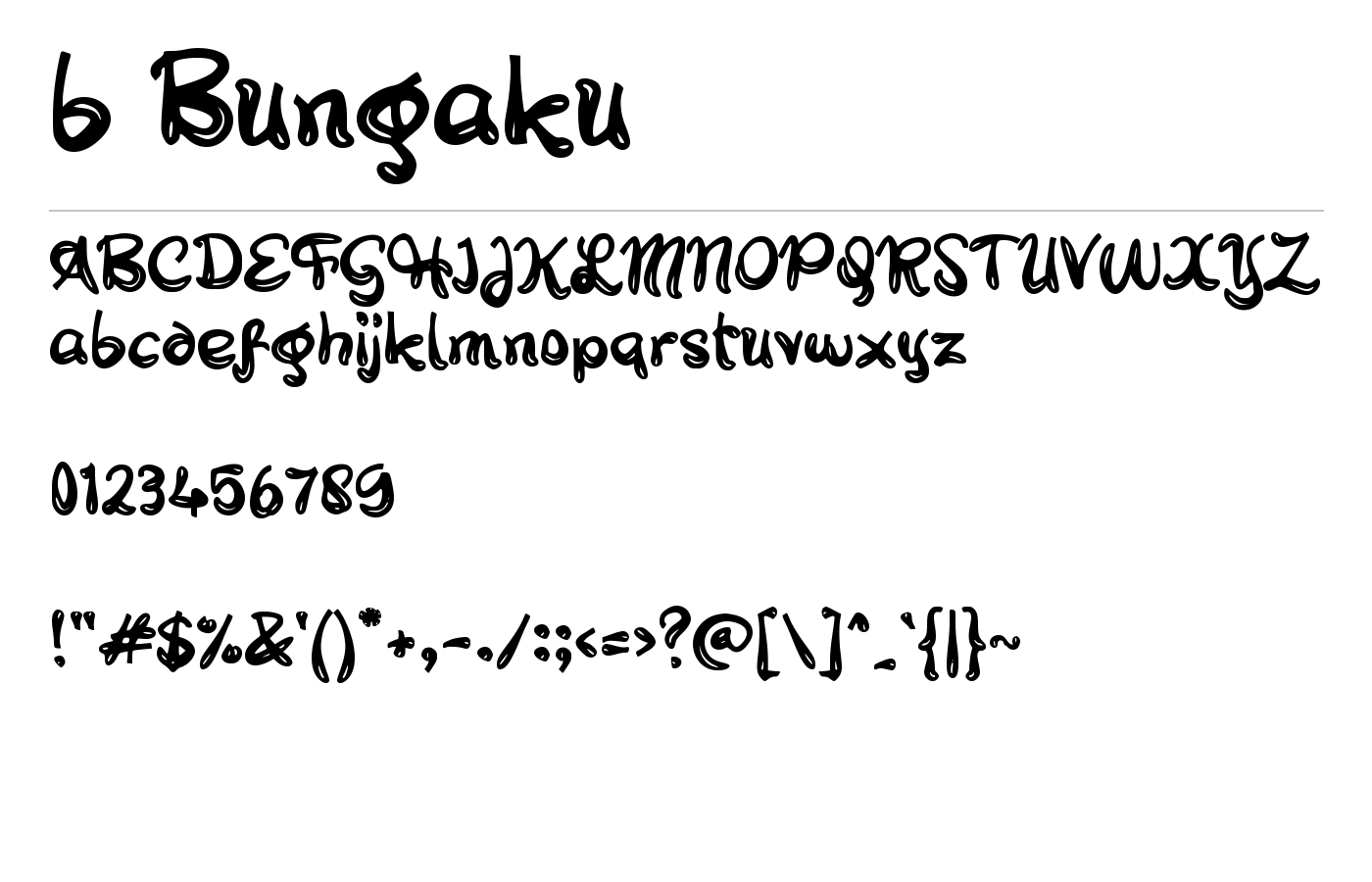
b Bungaku Font is a playful and casual handwritten typeface characterized by its bold, rounded strokes and quirky letterforms with whimsical curls and loops. It conveys a friendly and informal personality, making it ideal for creative projects, children’s books, or any design seeking a fun, approachable vibe. Its distinctive style works best in headlines, logos, and playful branding where a lively, creative impression is desired.
b Bungaku Font
About b Bungaku Font